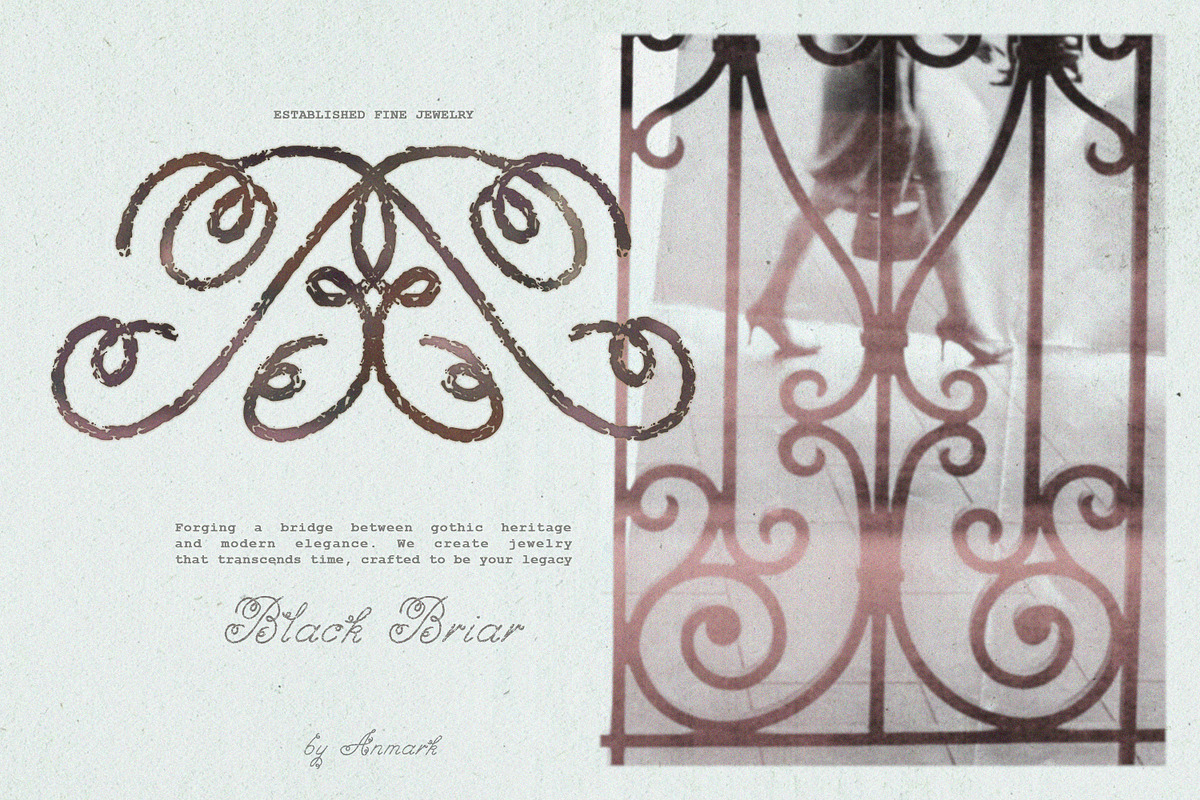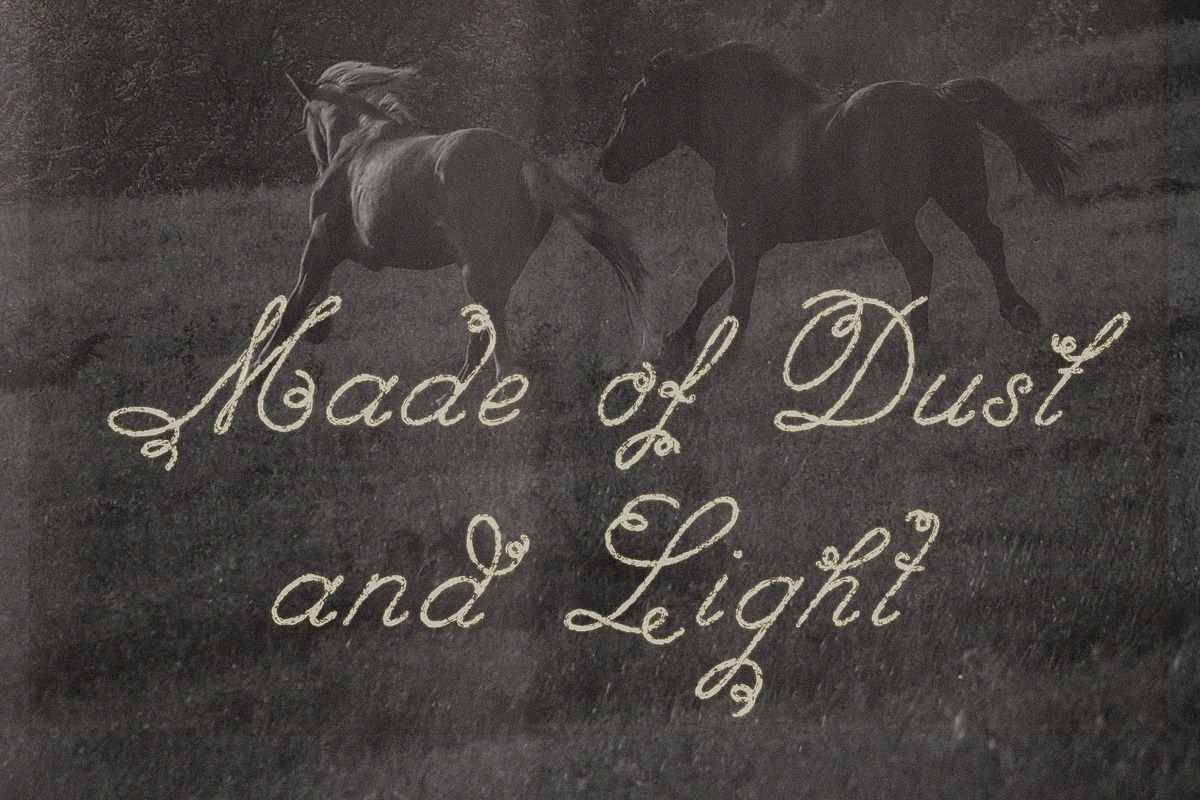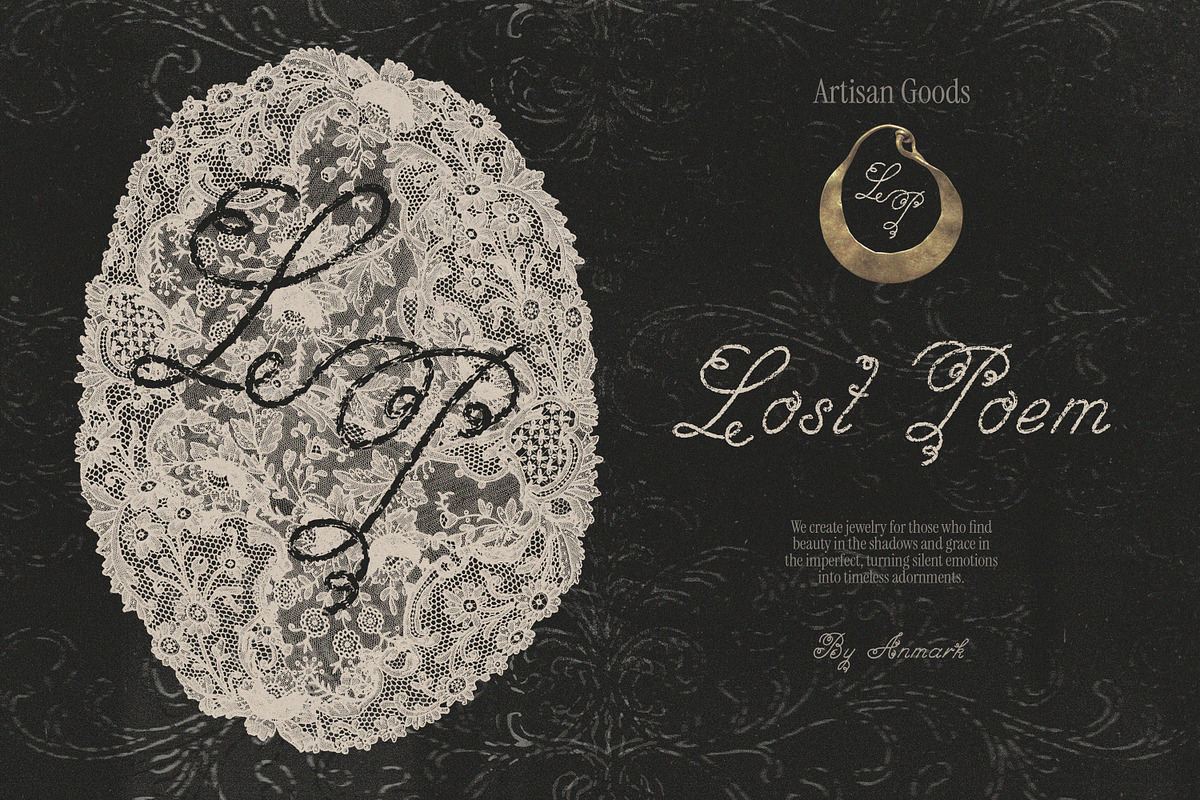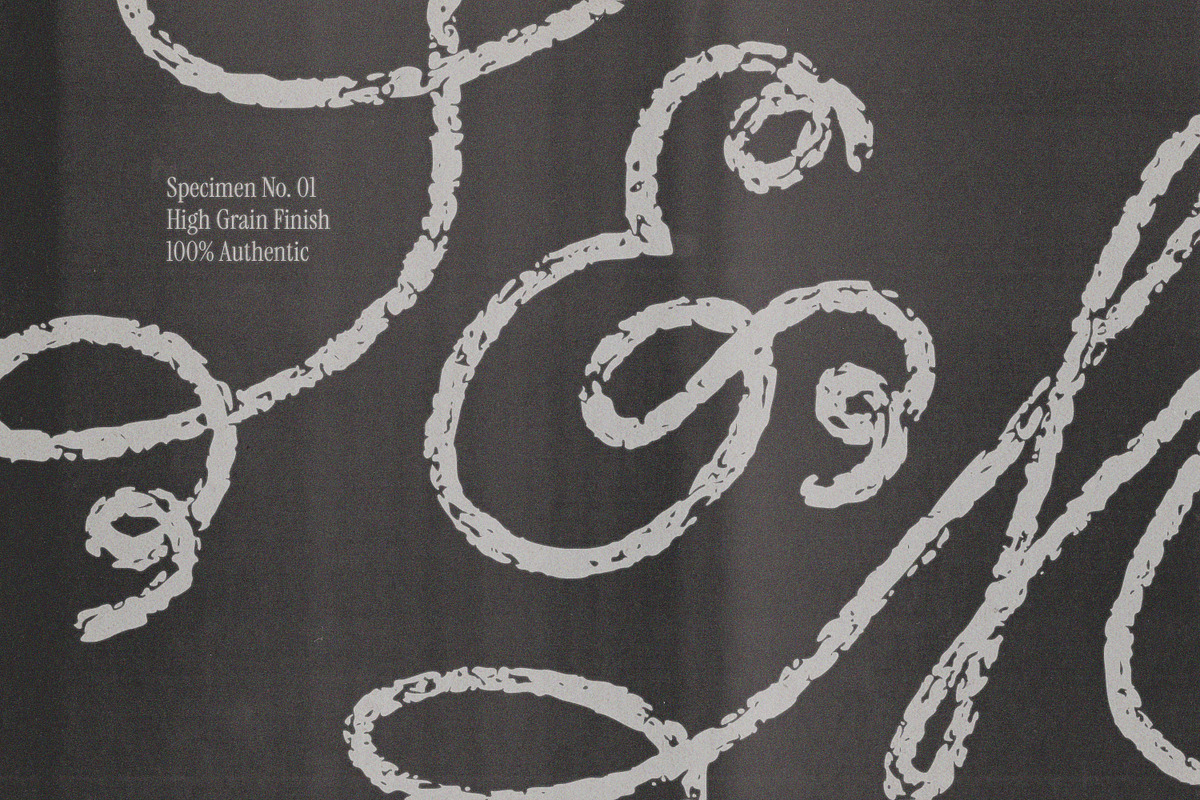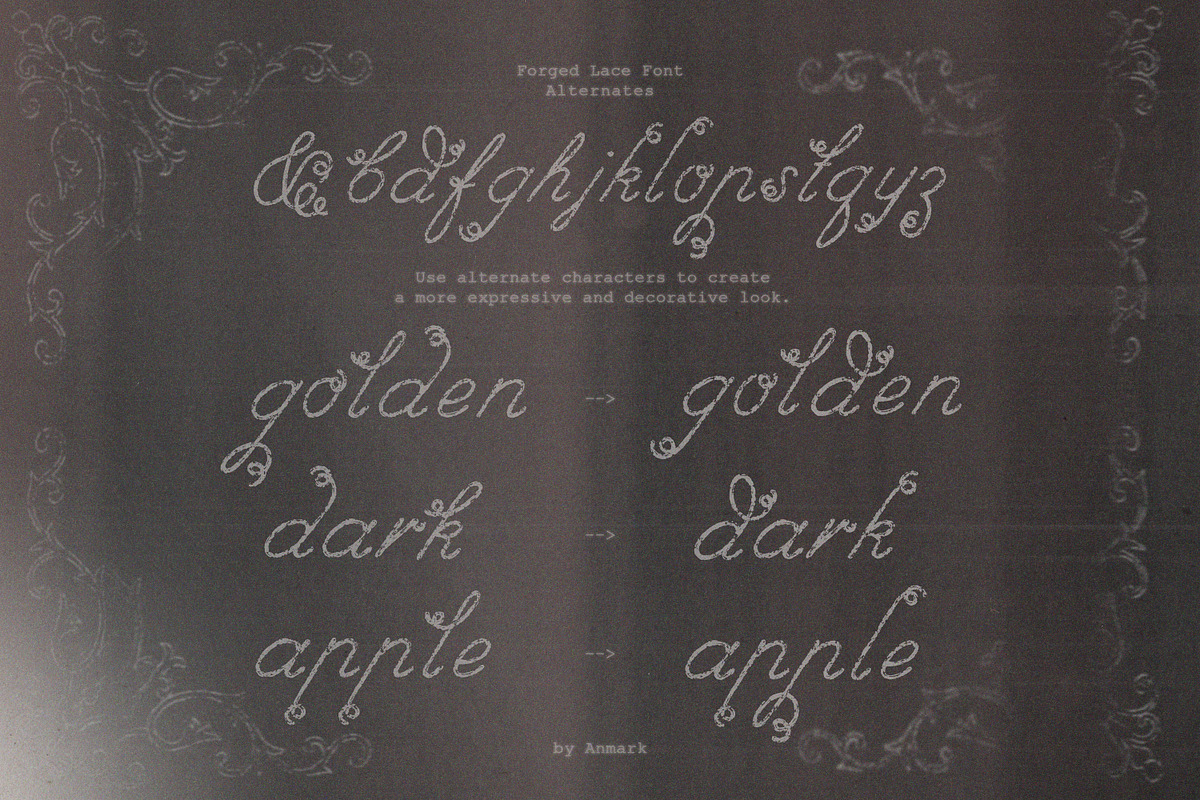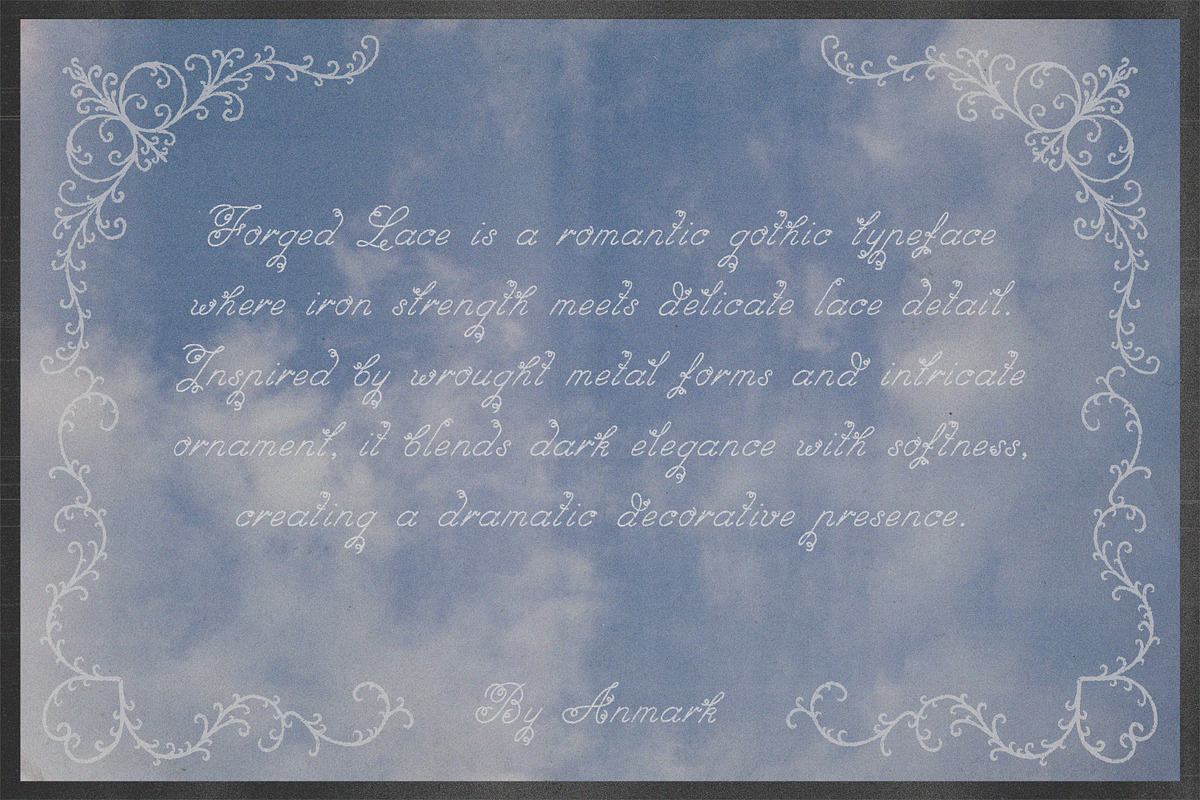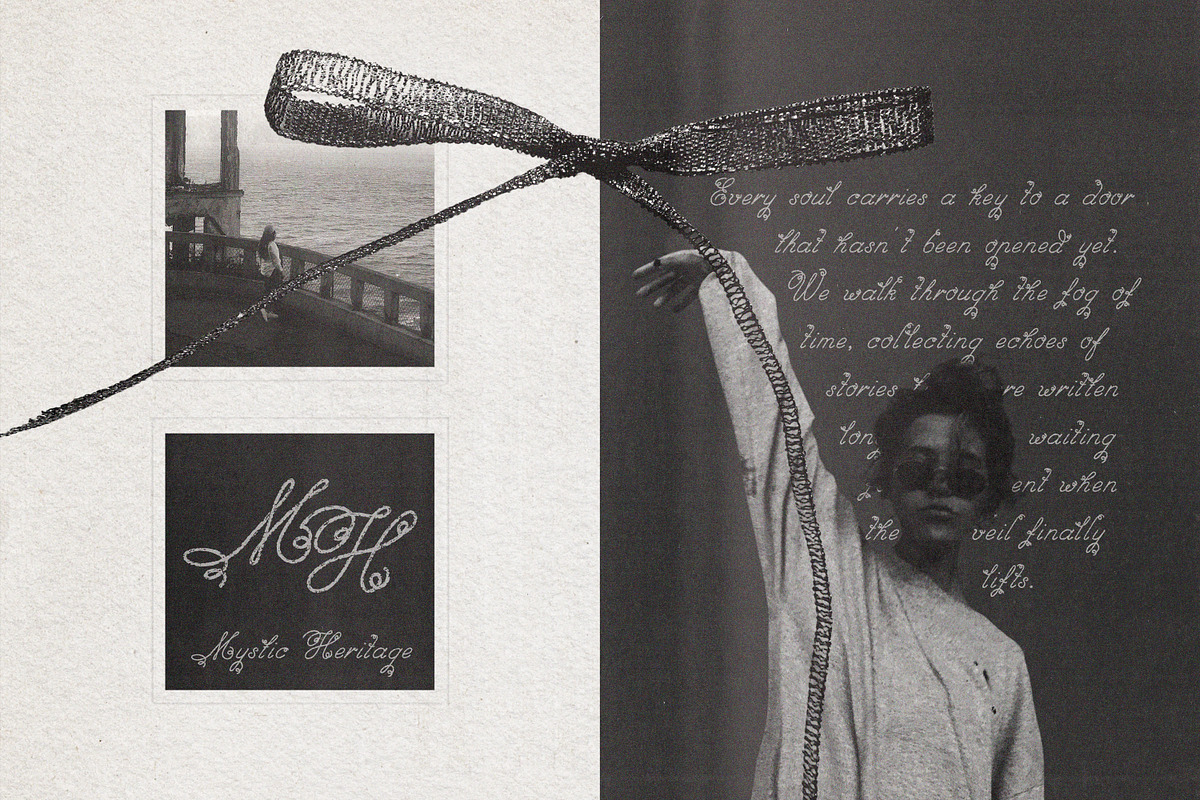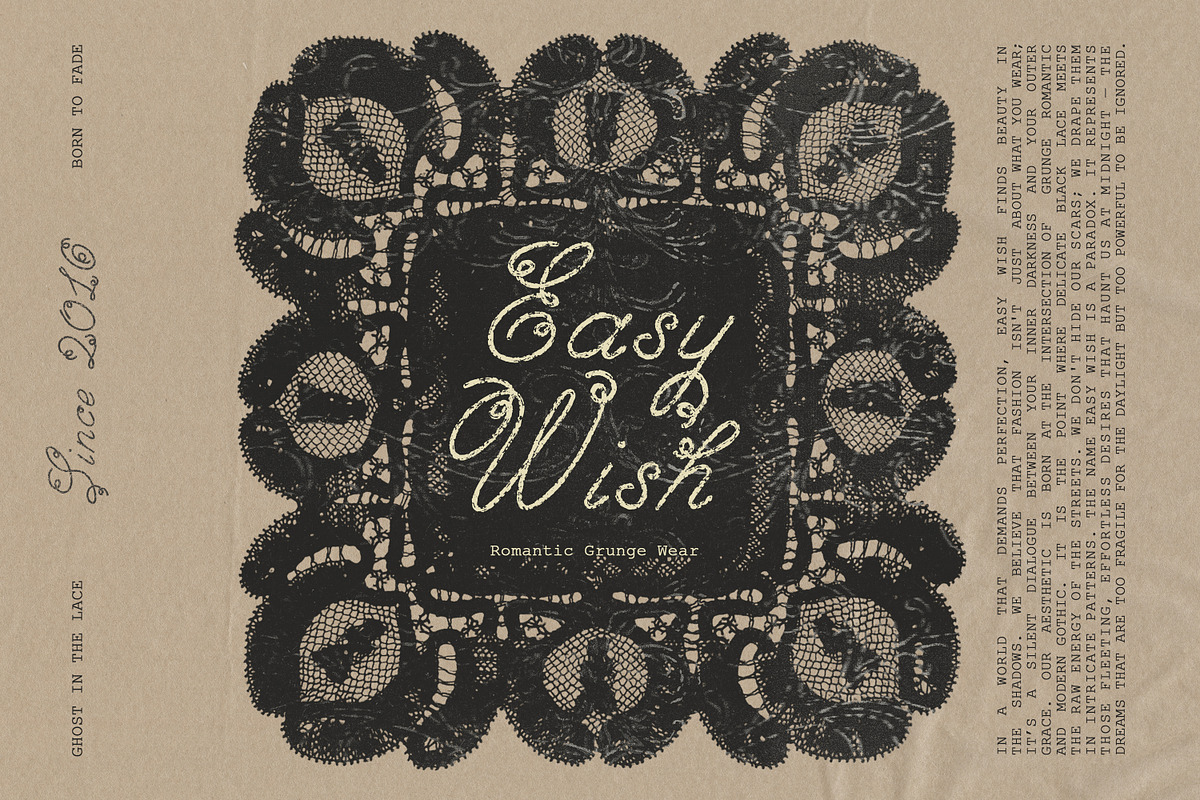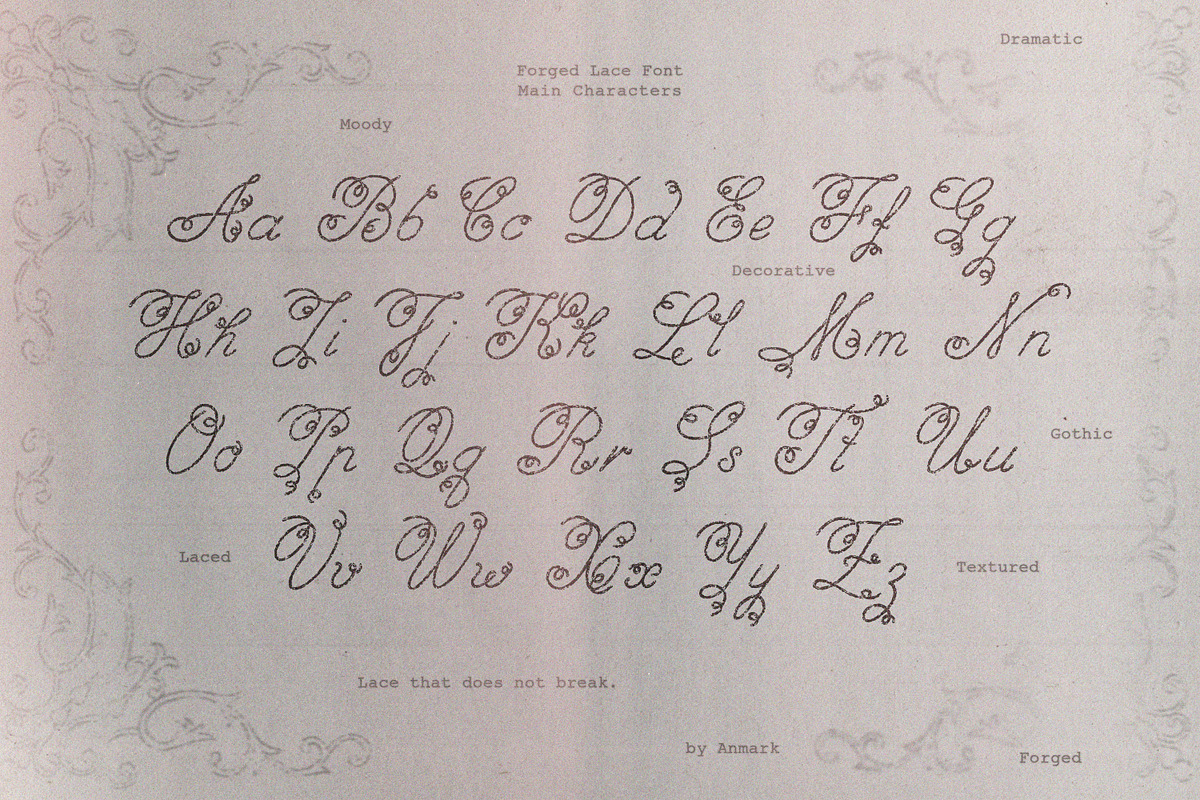
Forged Lace Romantic Gothic Font
Forged Lace is a romantic gothic display font inspired by wrought iron curves and intricate lace ornament. This decorative typeface blends bold metal structure with delicate baroque detailing, creating a dramatic yet elegant visual presence.
Designed as an ornamental gothic font with handcrafted character, Forged Lace brings together dark romance, vintage luxury, and refined decorative texture. Each letter carries a balance of strength and softness, making it ideal for expressive typography and statement lettering.
Perfect for fashion branding, editorial layouts, wedding invitations, luxury packaging, logo design, beauty campaigns, gothic aesthetics, and romantic print projects. This baroque-inspired display font works beautifully for couture visuals, moody photography, social media graphics, and high-end branding.
Use the alternate characters to create unique compositions, enhance flourishes, and achieve a more ornamental and customized look. Mix main characters and alternates to add rhythm, contrast, and handcrafted elegance to your designs.
Forged Lace is more than a gothic font, it is a decorative statement typeface where iron strength meets lace delicacy.